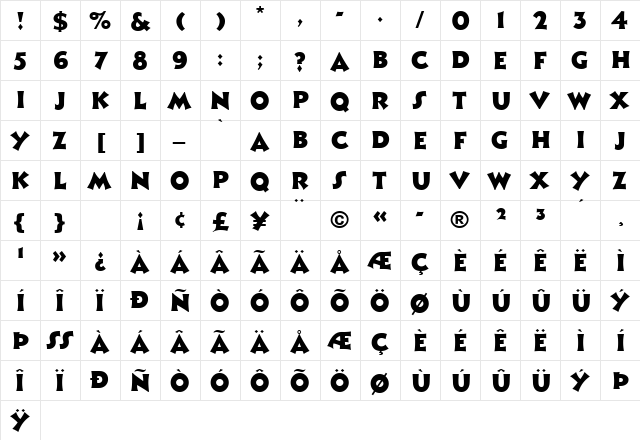
Ashley Crawford MT Bold Regular
Design Context for Ashley Crawford MT Bold Typeface
Ashley Crawford MT Bold offers clean, dependable letterforms without strong stylistic allegiance, making it a practical choice for designers who need flexibility. Its bold stroke weight gives it real presence on the page.